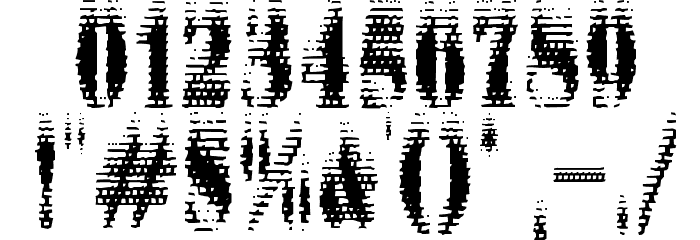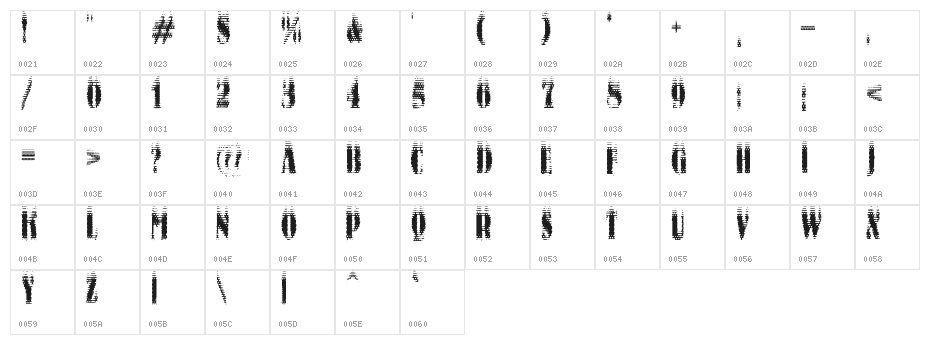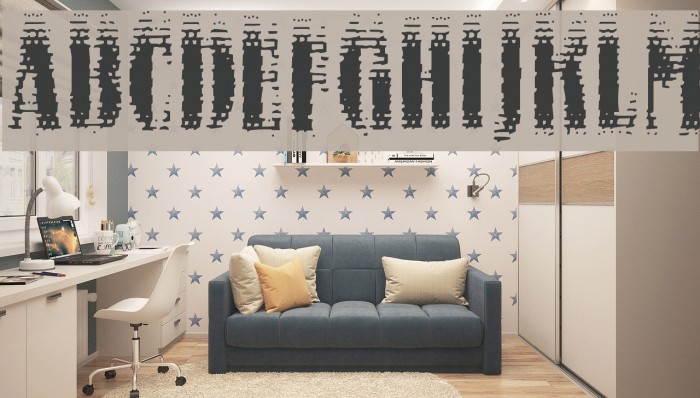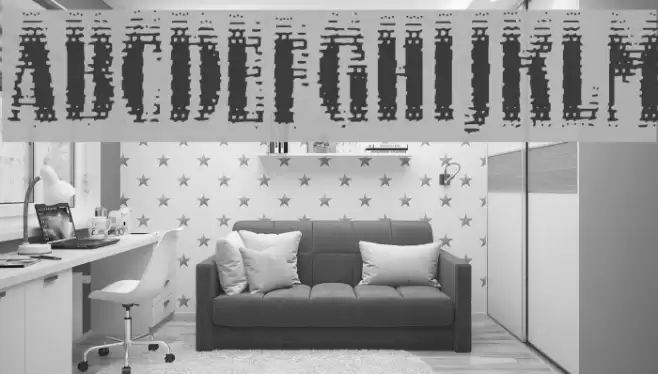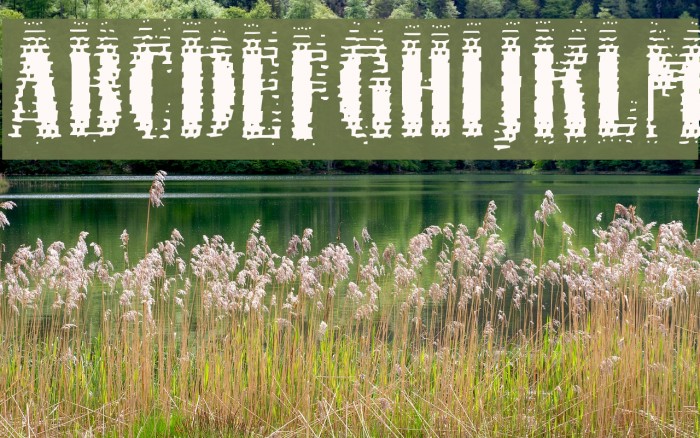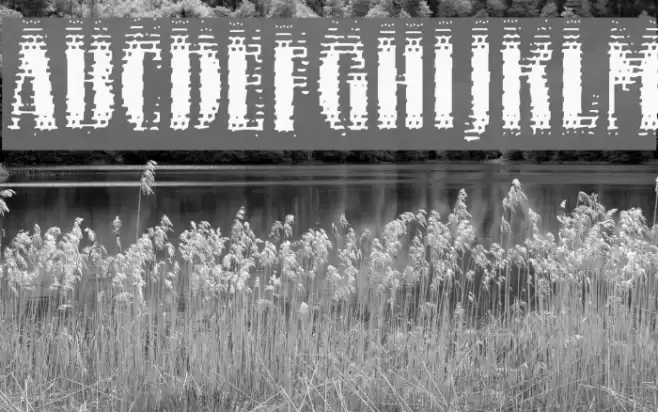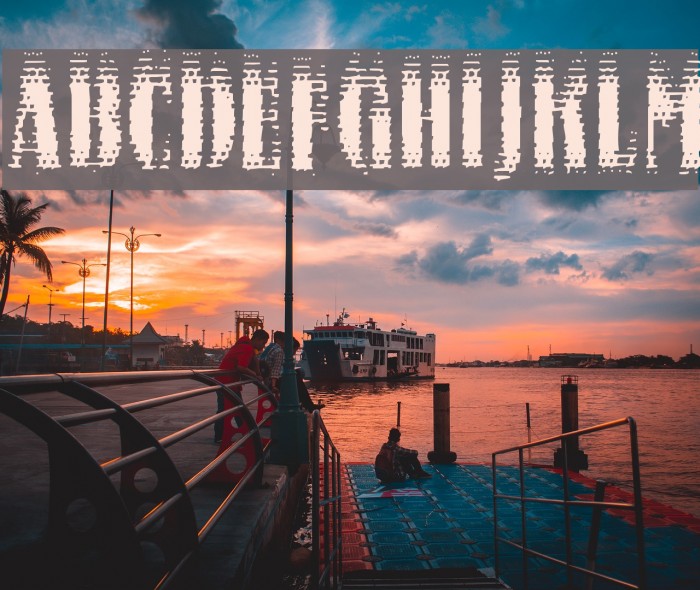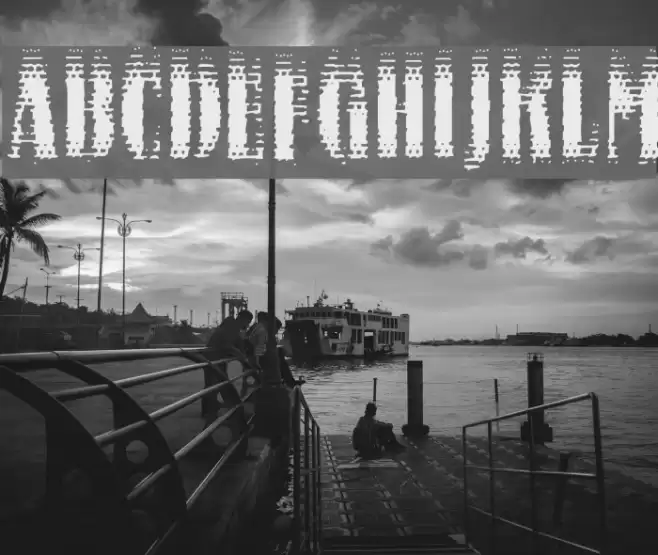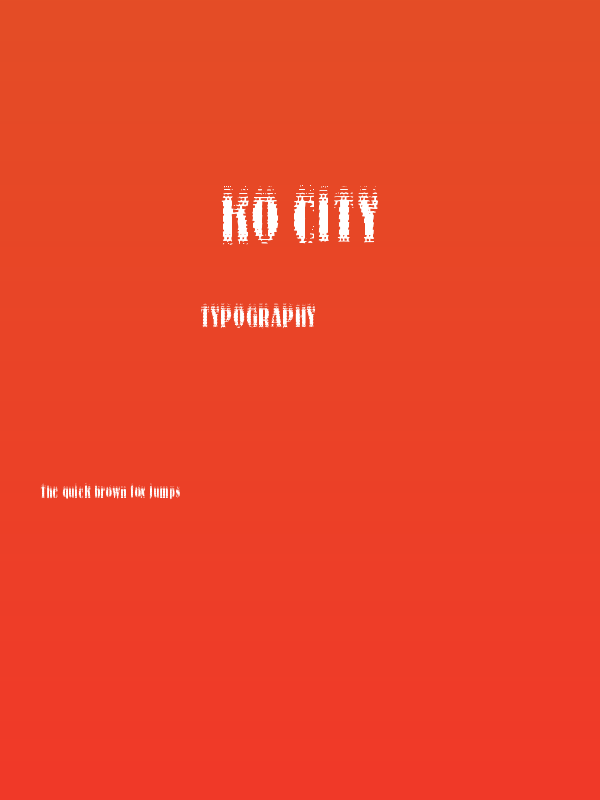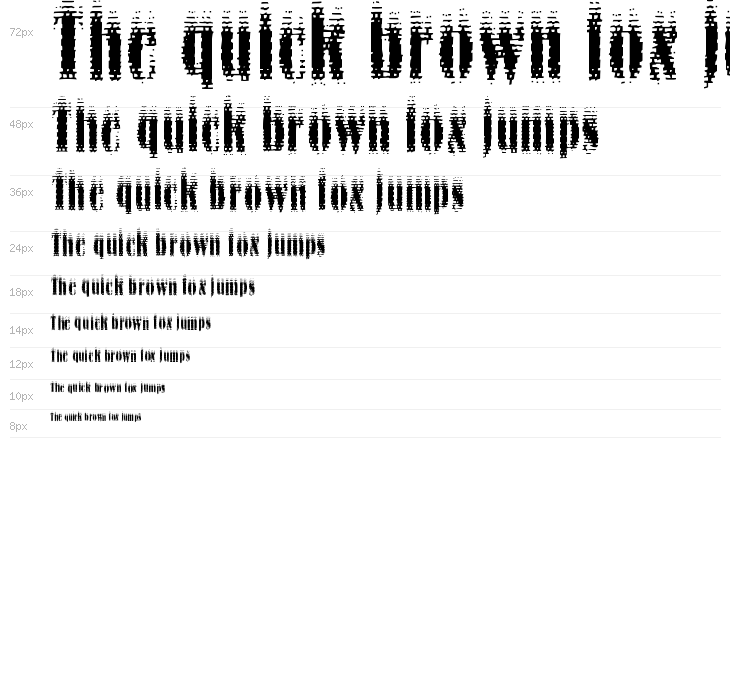
Ko City Font
Ko City Description
This font features a bold, distressed style with a textured appearance that gives it a rugged and urban feel. The characters are blocky and substantial, with a consistent width that maintains readability despite the distressed effect. The uppercase and lowercase letters are well-defined, and the numbers and special characters follow the same stylistic approach, ensuring a cohesive look across all text. This font's unique design makes it stand out, ideal for projects that require a strong visual impact.
| Overall Style | Urban, Rugged, Textured |
| Proposed Projects | Ideal for posters, album covers, streetwear branding, and urban-themed designs. |